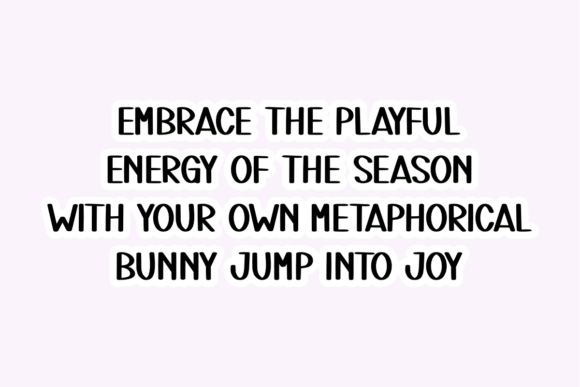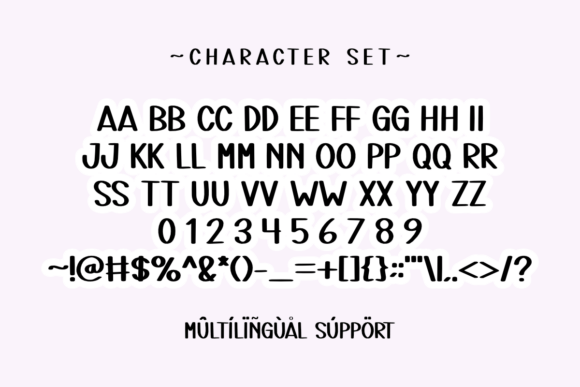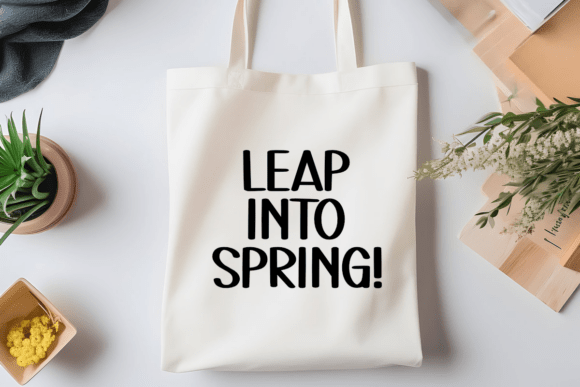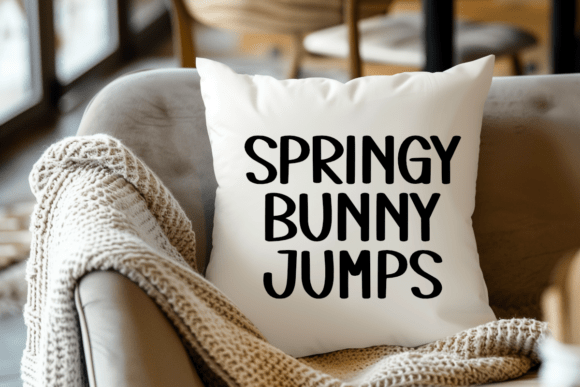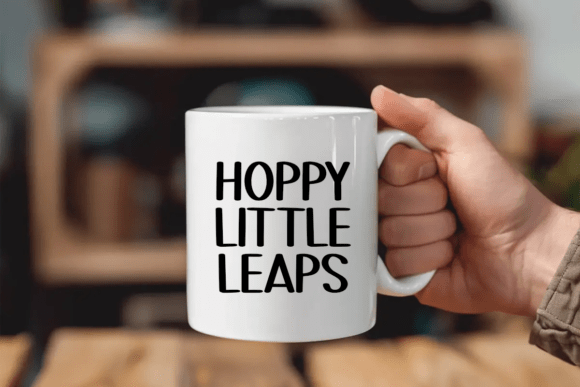
A Fresh Bounce of Creativity with Bunny Jump Font
Have you ever stared at a blank canvas, wondering how to bring your creative idea to life? The spark of inspiration is always there, but sometimes all it takes is the right tool to set your imagination free. For graphic designers and crafters, finding the perfect font can be the missing piece of the puzzle. That’s where the charming Bunny Jump Font comes in – a playful handwritten typeface designed to add a whimsical touch to your creations.
With Bunny Jump Font, you can infuse your designs with a fun and friendly feel that’s sure to capture attention. Whether you’re working on a children’s book, a craft project, or a social media campaign, this delightful font is the perfect way to elevate your creations and make them stand out. As a valuable addition to any designer’s toolkit, the Bunny Jump Font is ready to help you jumpstart your next project and bring your ideas to life in a whole new way.
- Character Set: This font features a unique set of characters, including uppercase and lowercase letters, numbers, punctuation marks, and special characters, all designed to resemble a cartoonish bunny jumping style.
- Unique Characteristics: This font boasts a distinctive, hand-drawn design with a playful and whimsical feel, making it perfect for creating eye-catching headlines, titles, and other visual elements.
- Legibility: Despite its playful design, the Bunny Jump Font remains highly legible, ensuring that the text remains clear and easy to read even at smaller sizes or in complex compositions.
Bunny Jump Font Review
I’ve had the chance to work with the Bunny Jump Font, and overall, it’s a cute and playful font that can add a lot of character to a design. ✨ The rounded shapes and bouncy feel really evoke the idea of a bunny, making it perfect for children’s books, nursery decor, or any project that needs a lighthearted touch.
One of the things that stands out about the Bunny Jump Font is its versatility. It’s available in multiple weights, from light to bold, which gives designers a lot of options for creating different moods and effects. The font also includes a range of punctuation and special characters, making it easy to use in a variety of contexts.
However, there are some limitations to consider. ⚠️ The font’s rounded shapes can sometimes make it difficult to read, especially at smaller sizes. Additionally, the font’s overall feel is a bit too “cute” for some projects, which may not be suitable for all audiences.
- Works well for children’s projects, nursery decor, and lighthearted designs
- Available in multiple weights and includes punctuation and special characters
- May be difficult to read at smaller sizes due to rounded shapes
- May be too “cute” for some projects
The Bunny Jump Font is ideal for creating playful and whimsical designs, such as:
Children’s book illustrations
Party invitations
Brand logos